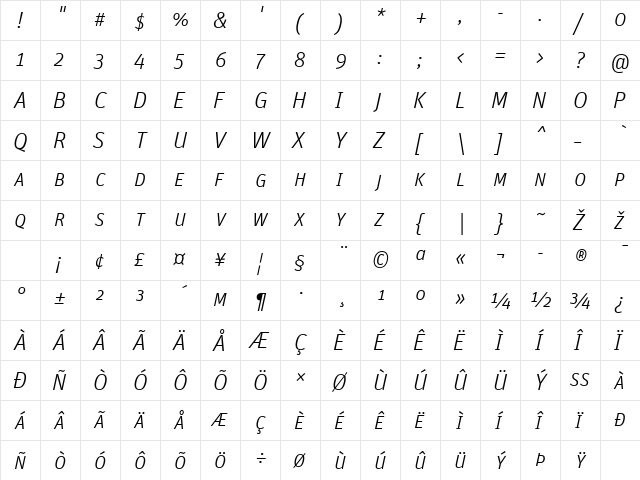
Unit-LightSCItalic Regular Font Preview
| Foundry | Erik Spiekermann, Christian Schwartz; published by FontShop International for the FontFont Library |
| Designer | Erik Spiekermann, Christian Schwartz |
Design Context for Unit-LightSCItalic Typeface
Unit-LightSCItalic offers clean, dependable letterforms without strong stylistic allegiance, making it a practical choice for designers who need flexibility. The dynamic lean of this cut emphasises speed and emphasis in any layout. Its slender proportions lend an understated elegance to any composition.